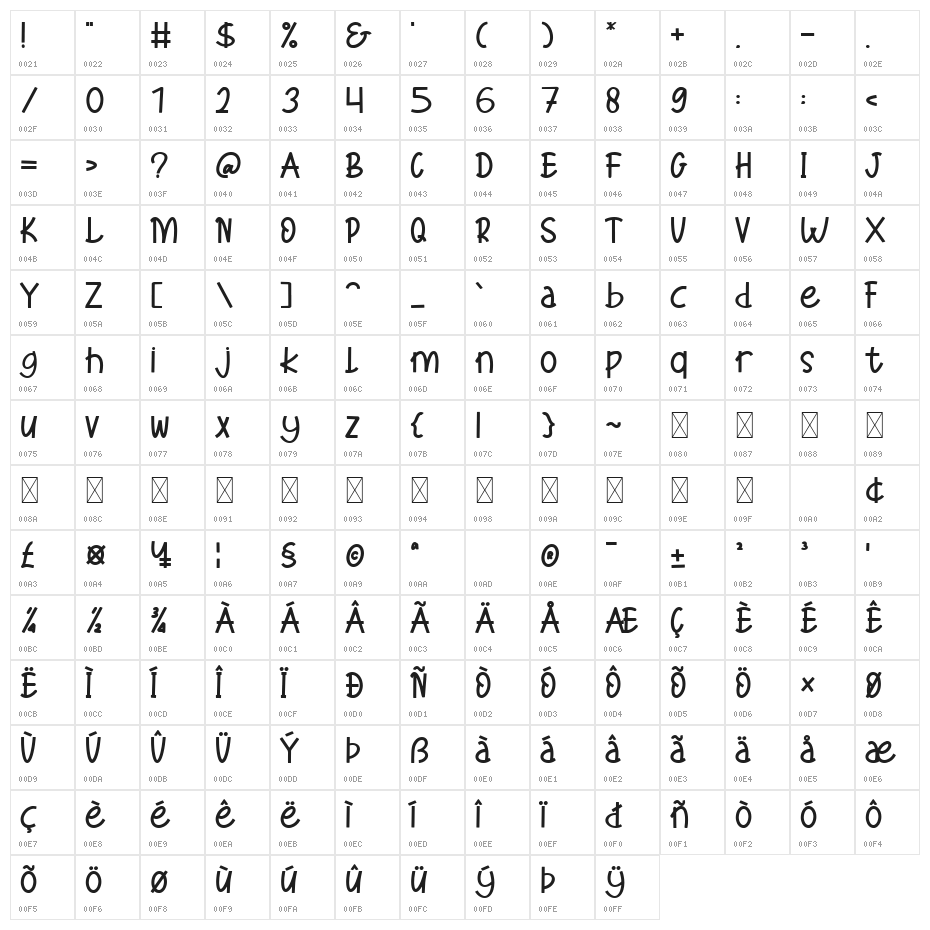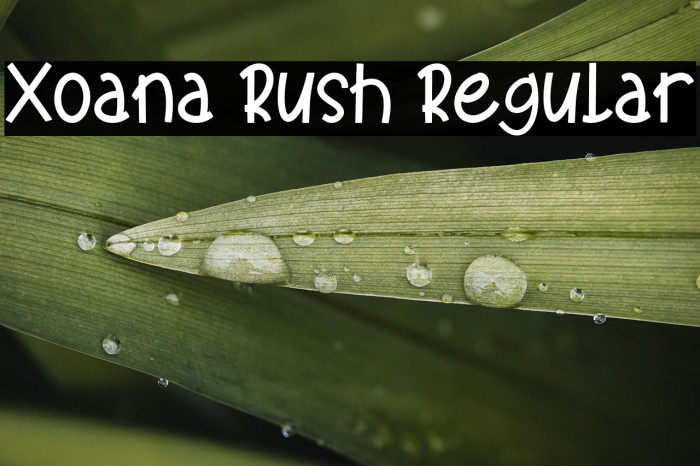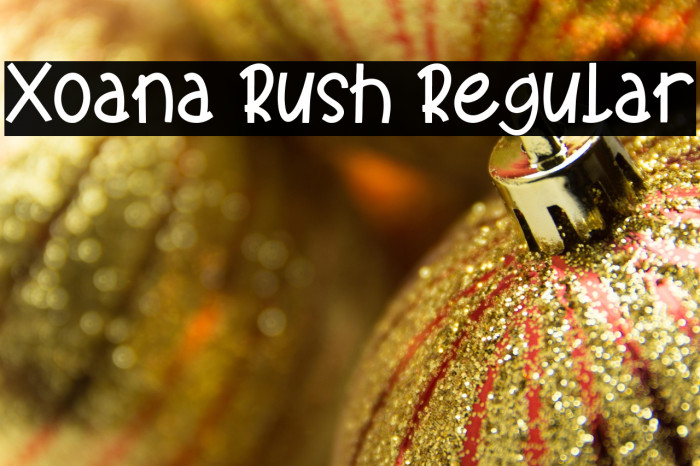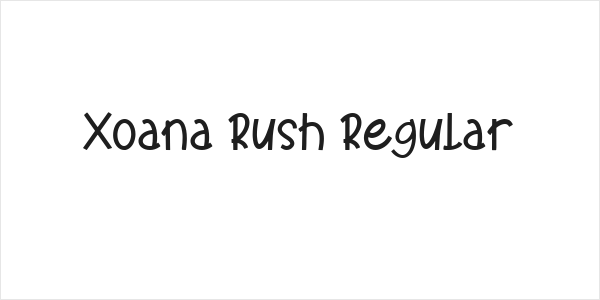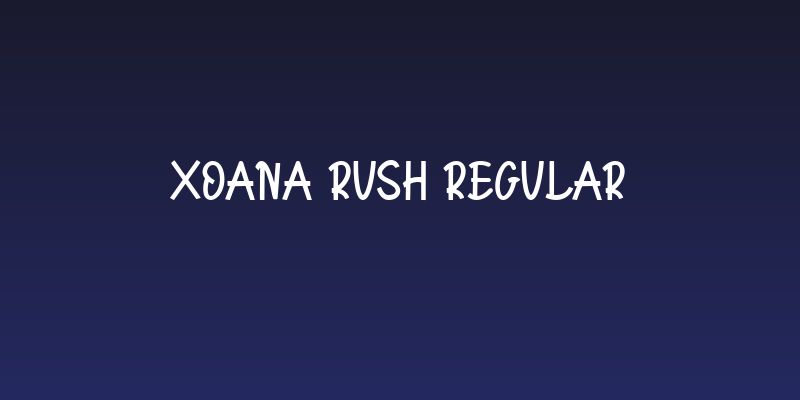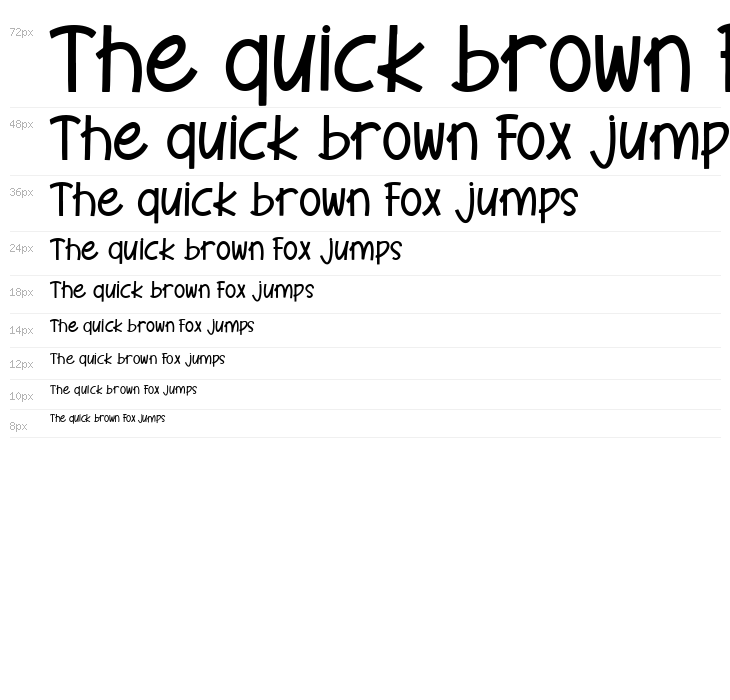
Xoana Rush Regular Font
Xoana Rush Regular Description
This font features a playful and informal handwritten style, characterized by its rounded and slightly irregular letterforms. The strokes are consistent in thickness, giving it a uniform appearance while maintaining a casual feel. The uppercase letters are bold and prominent, while the lowercase letters have a friendly and approachable look. The numerals are clear and easy to read, and the special characters maintain the same whimsical style. This font is ideal for projects that require a personal touch or a fun, relaxed vibe.
| Use Case | Headlines, Informal text, Branding |
| Proposed Projects | Ideal for greeting cards, children's books, playful branding, and casual invitations. |